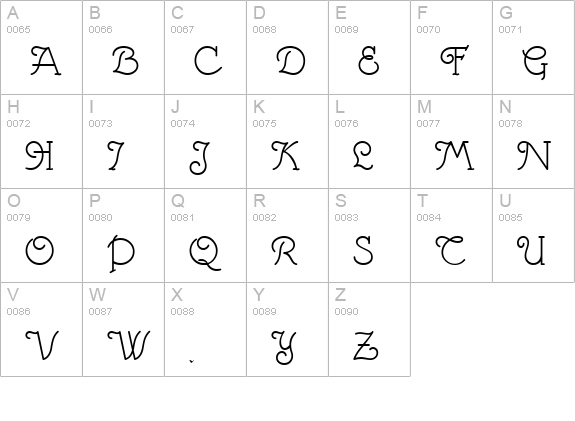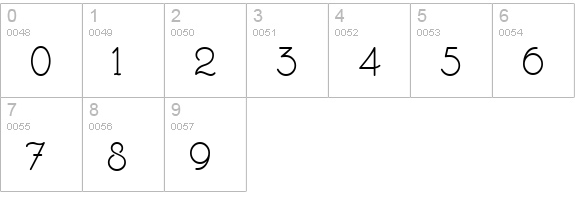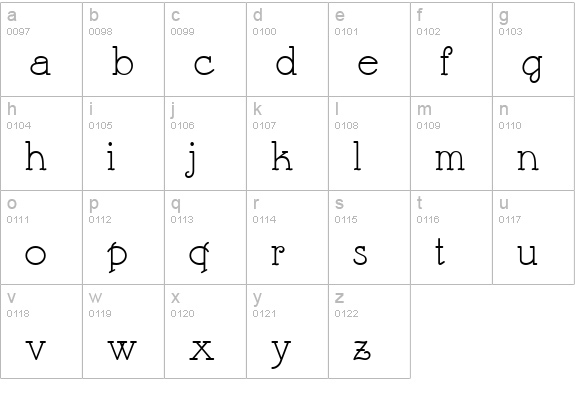
Margarita Ville Nf Font Details
Introducing Margarita Ville Nf, a charming and playful font that will transport you to a tropical paradise. With its whimsical curves and lighthearted letterforms, this font captures the essence of carefree beach days and laid-back island living. Margarita Ville Nf is the perfect choice for any design project that needs a touch of fun and relaxation. Whether you're creating invitations for a beach party, designing a travel brochure, or adding a touch of personality to your social media posts, this font will bring a sense of joy and warmth to your work. But what sets Margarita Ville Nf apart from other fonts is that it is not only visually stunning, but it is also free! That's right, this font is freely available to download at FontsMarket.com. Now you can bring the spirit of Margarita Ville to your designs without breaking the bank. So go ahead, unleash your creativity and let Margarita Ville Nf whisk you away to a world of sunshine and relaxation. Download it today and bring a taste of the tropics to your next project. Cheers to free-spirited design!